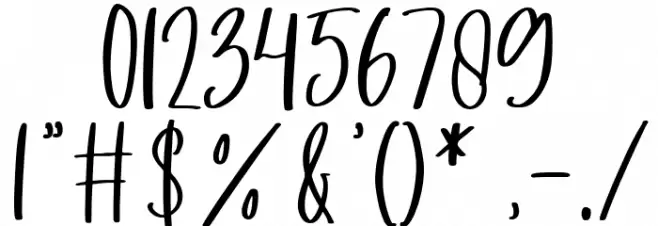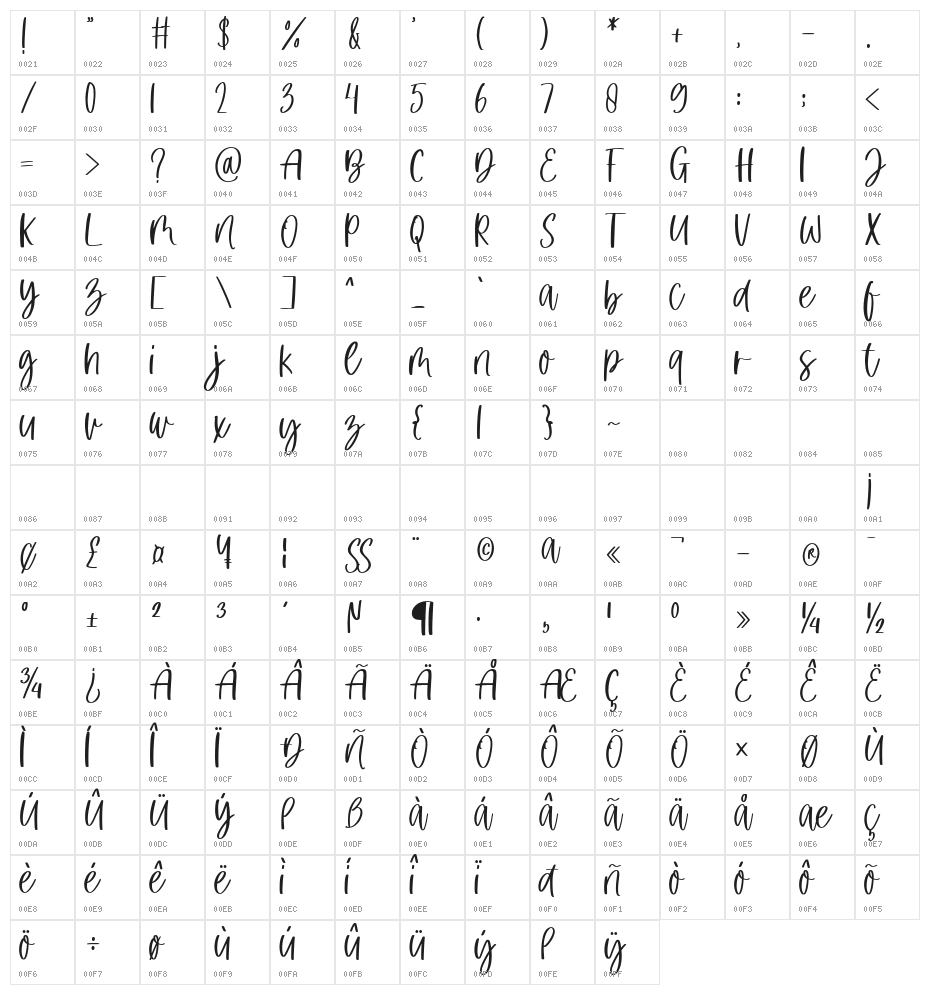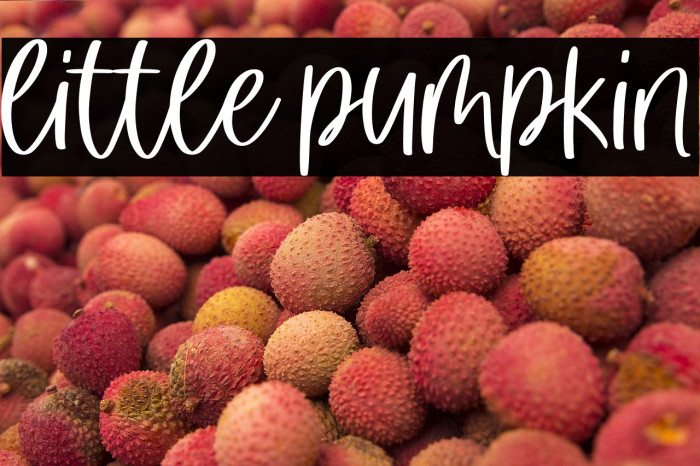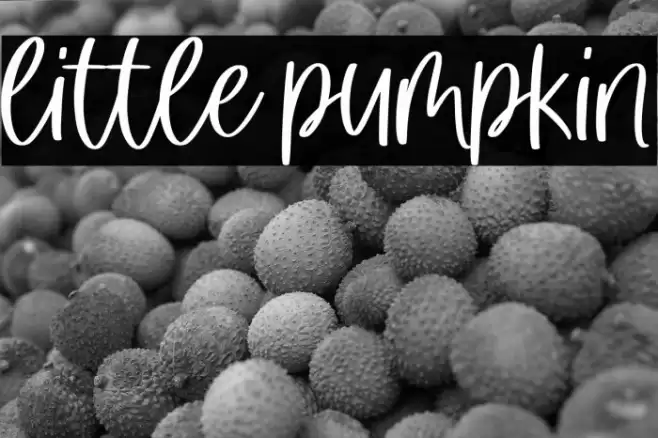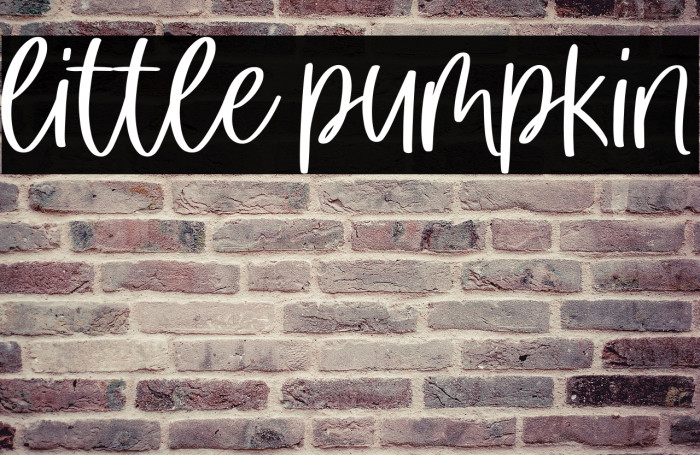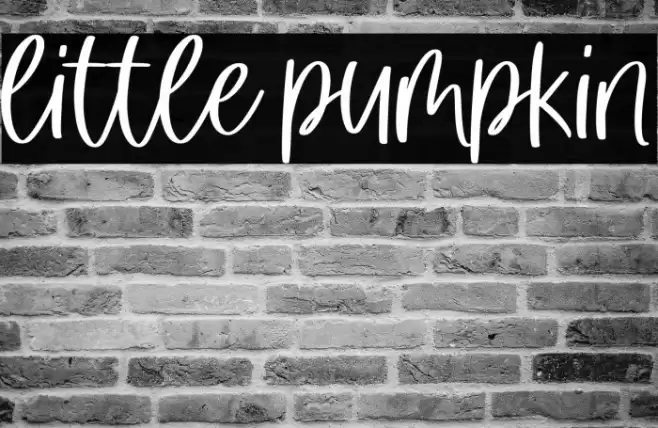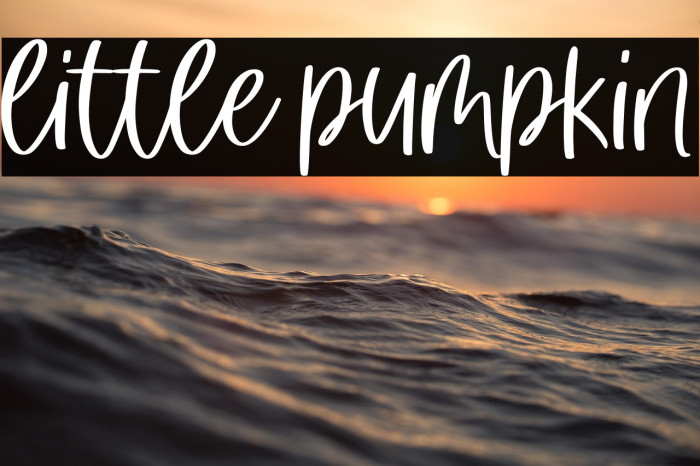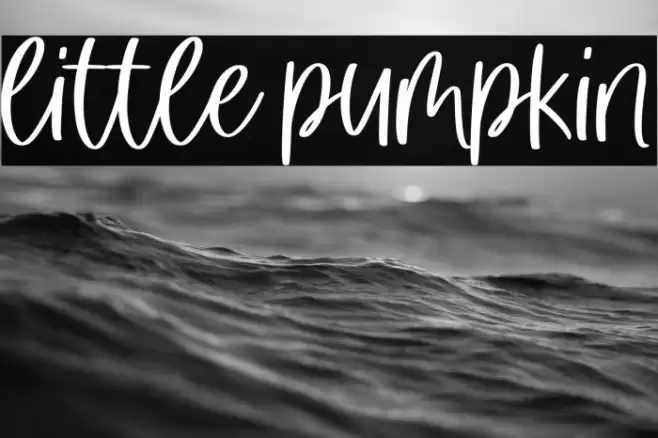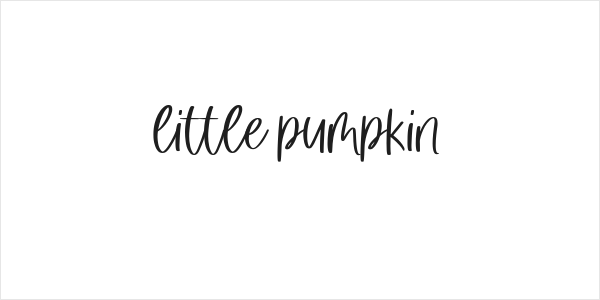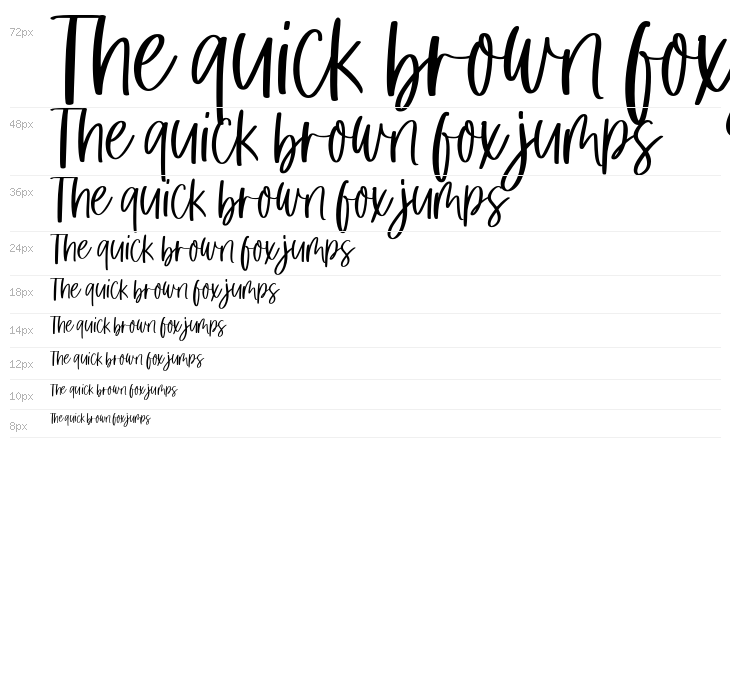
little pumpkin Font
little pumpkin Description
This font exhibits a playful and whimsical handwritten style, characterized by its fluid and dynamic strokes. The letters are crafted with a casual flair, featuring varying heights and a slight slant that adds to its informal charm. The uppercase letters are bold and expressive, while the lowercase letters maintain a consistent flow, enhancing readability. Numbers and special characters follow the same lively design, making the font versatile for creative projects. Its organic appearance is suitable for designs that require a personal touch, such as invitations, greeting cards, and playful branding.
| Proposed Projects | Ideal for invitations, greeting cards, playful branding, and creative projects. |